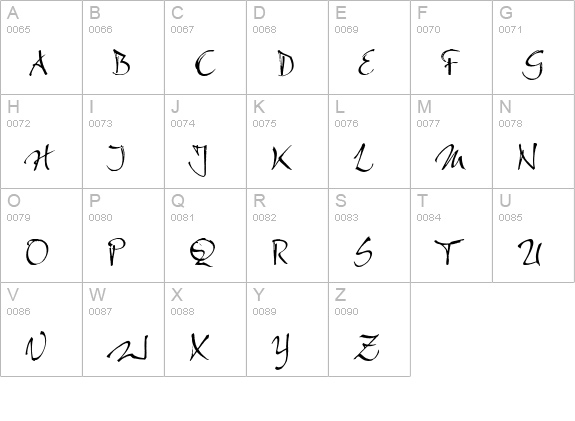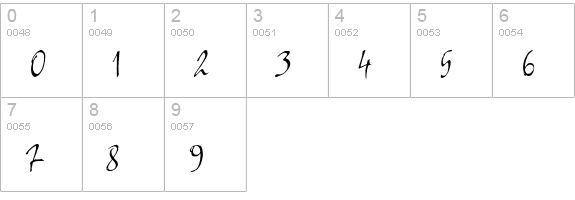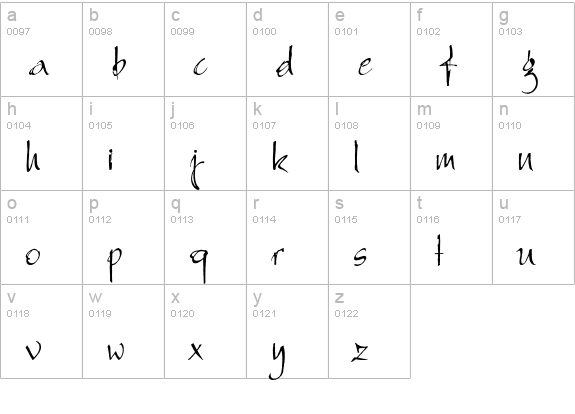
Bambino Font Details
Bambino font is a modern and elegant typeface that exudes sophistication and style. With its clean lines and sleek design, Bambino is perfect for a wide range of projects, from branding to editorial design. This versatile font is sure to make a statement and elevate any design it is used in. The best part? Bambino font is available for free download at FontsMarket.com. Don't miss out on the opportunity to add this beautiful font to your collection without spending a dime. Download Bambino font today and take your designs to the next level!